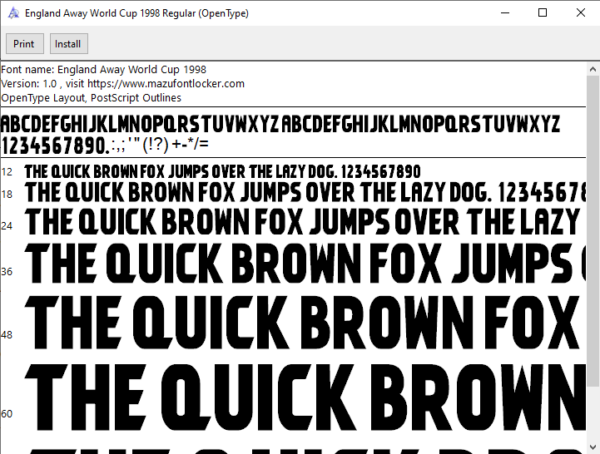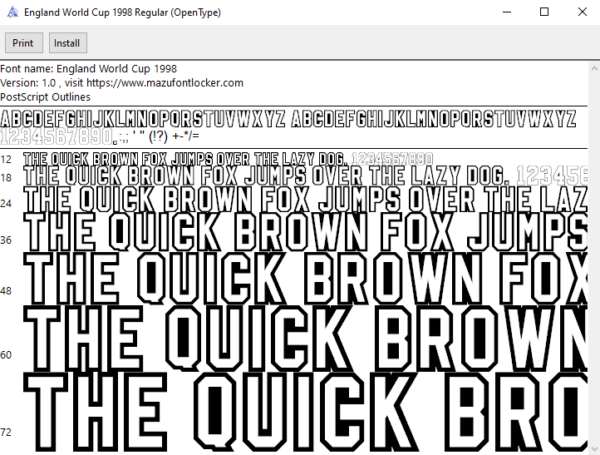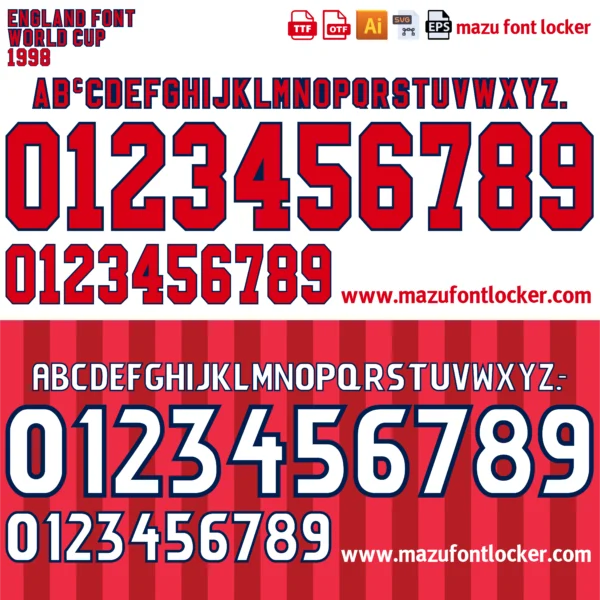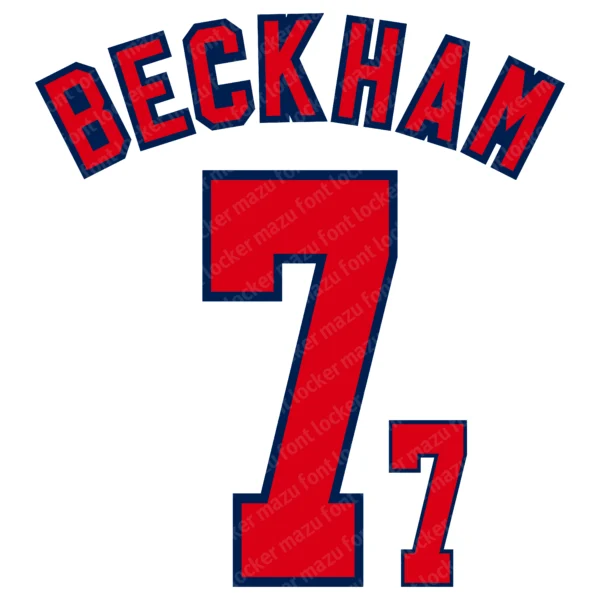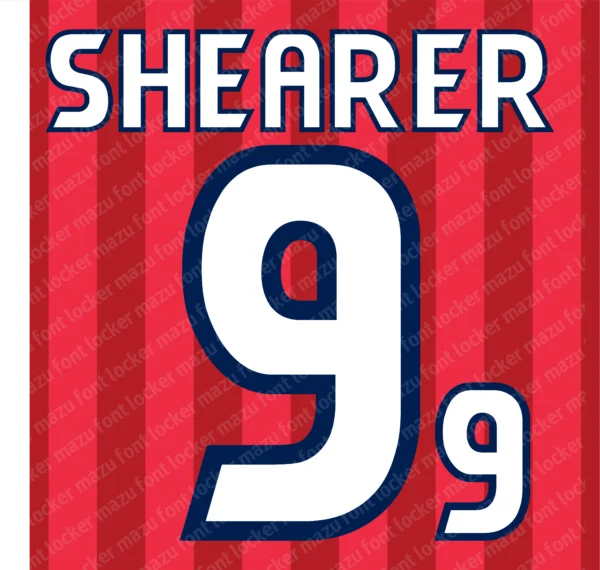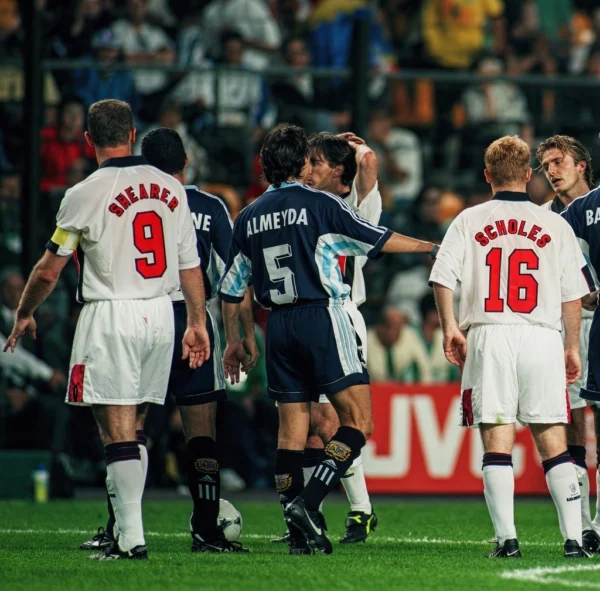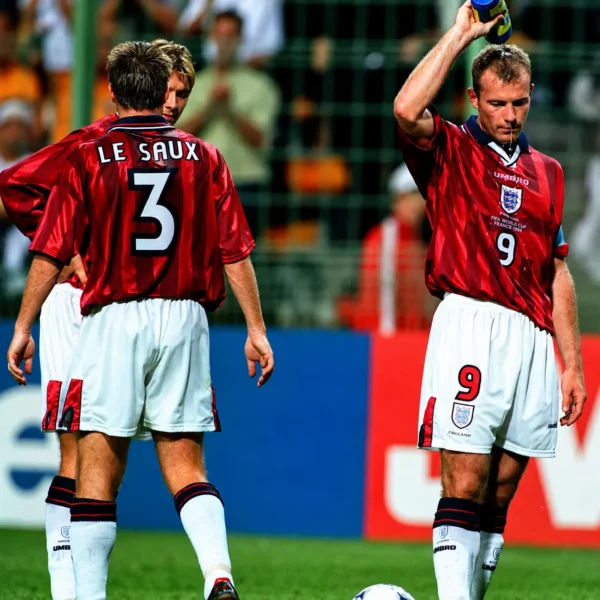
England World Cup 1998 Font Vector – Epic Roaring Three Lions Masterpiece
Download the England World Cup 1998 Font Vector and powerfully recreate the bold and dynamic match-style lettering worn by the English National Team during their iconic 1998 FIFA World Cup campaign. This font captures the strong and commanding typography that embodies the passionate red-and-white Three Lions spirit, delivering unmatched authenticity for premium jersey mockups and football designs.
England World Cup 1998 Font – Authentic Three Lions Typeface
The England World Cup 1998 Font is a premium typeface that accurately recreates the official match lettering worn by the England national team during the 1998 FIFA World Cup in France. This high-quality font kit captures the bold, classic, and iconic typography that represents the Three Lions’ campaign.
Designed for professional designers and passionate England fans, the England World Cup 1998 Font delivers perfect authenticity for creating retro jersey mockups, fan merchandise, matchday posters, social media graphics, and much more. It blends beautifully with the team’s iconic white and red colors.
Why Choose England World Cup 1998 Font
This font stands out because of its sharp details and strong historical identity. Every letter and number is crafted to match the exact style used on the players’ shirts during the 1998 World Cup. Whether you are making realistic retro shirt templates or nostalgic football content, the England World Cup 1998 Font gives your designs that authentic Three Lions look.
The letterforms in the England World Cup 1998 Font are tall, bold, and highly readable. The strokes have a strong and controlled weight that looks powerful on the back of jerseys while maintaining excellent clarity and elegance.
The numerals use bold curves and firm edges, giving them a confident and premium appearance. This design ensures great legibility whether used in large print formats, digital mockups, or video content.
• Full uppercase A–Z and numbers 0–9 in authentic England 1998 style
• Create highly realistic England 1998 national team jersey mockups with accurate lettering
• Design stunning retro World Cup posters, score graphics, and squad announcements
• Produce custom Three Lions merchandise with a classic football aesthetic
England in the 1998 World Cup
The England national football team, famously known as the Three Lions, competed in the 1998 FIFA World Cup in France. Featuring stars like Alan Shearer, Michael Owen, and David Beckham, England reached the Round of 16 but were eliminated by Argentina in a dramatic penalty shootout. For the latest news and updates about the Three Lions, visit the official England Football Association website.